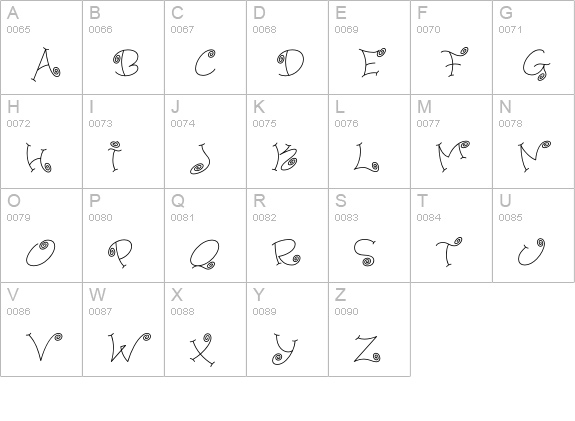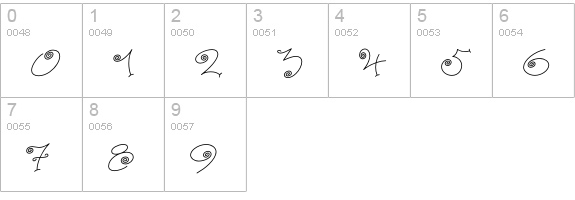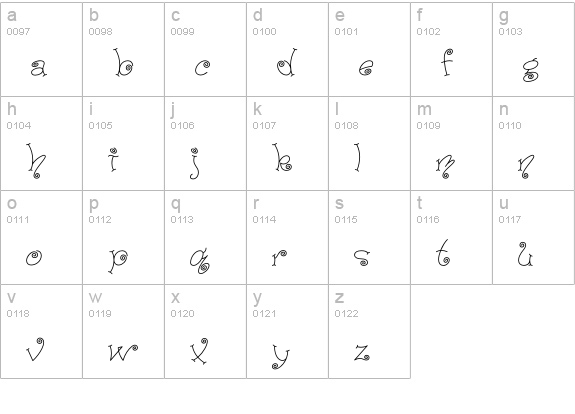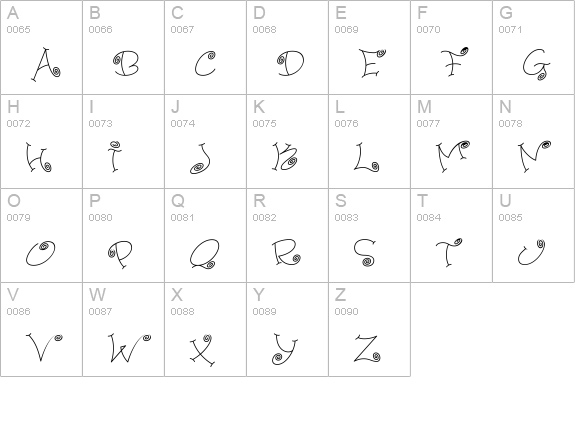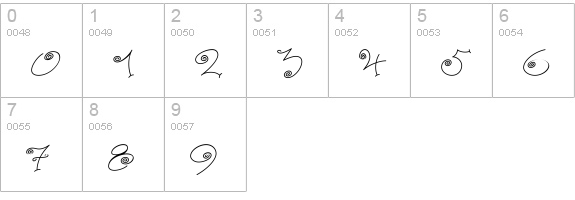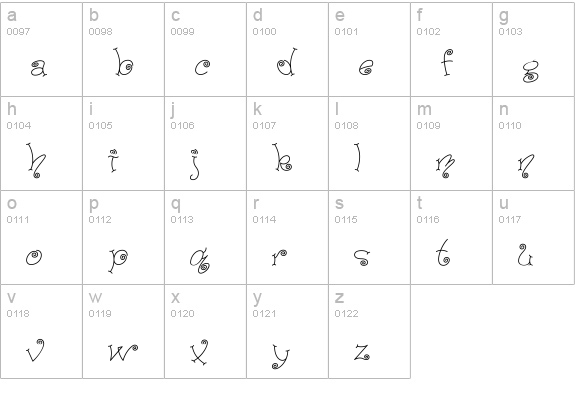
PaisleyICG-01 Font Details
PaisleyICG-01 font is a stunning display font that exudes elegance and sophistication. With its intricate and ornate letterforms, this font adds a touch of luxury to any design project. The unique blend of curvy lines and sharp edges creates a captivating visual impact, making it perfect for branding, logos, titles, and headlines. What sets PaisleyICG-01 font apart is its versatility. It can effortlessly adapt to both modern and vintage themes, making it a desirable choice for various design styles. Whether you're looking to create a retro-inspired poster or a contemporary website, this font will elevate your design to new heights. But what makes PaisleyICG-01 font truly remarkable is that it is freely available to download at FontsMarket.com. This means that you can enjoy the beauty and functionality of this font without any cost implications. It's a rare gem in the world of typography, where high-quality fonts often come with a hefty price tag. With its generous availability, PaisleyICG-01 font opens up a world of possibilities for designers, entrepreneurs, and creatives who are looking to enhance their projects without breaking the bank. Its easy accessibility ensures that everyone can access this font and use it to create visually stunning designs. So why wait? Dive into the world of PaisleyICG-01 font and unleash your creativity today. Whether you're a professional designer or a passionate hobbyist, this font will inspire and empower you to create exceptional designs that leave a lasting impression. Download PaisleyICG-01 font for free at FontsMarket.com and let your imagination run wild.